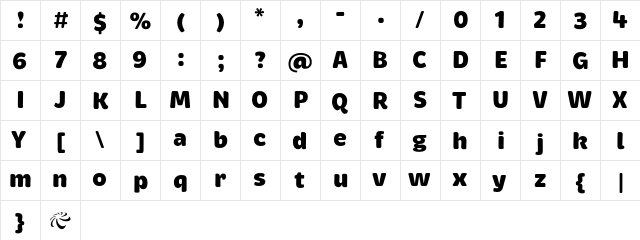
Brevia Black Regular
| Foundry | Hannes von Dn |
| Designer | Hannes von Dn |
Design Context for Brevia Black Typeface
Brevia Black is a composed and adaptable typeface that performs quietly and consistently across a wide range of design contexts.